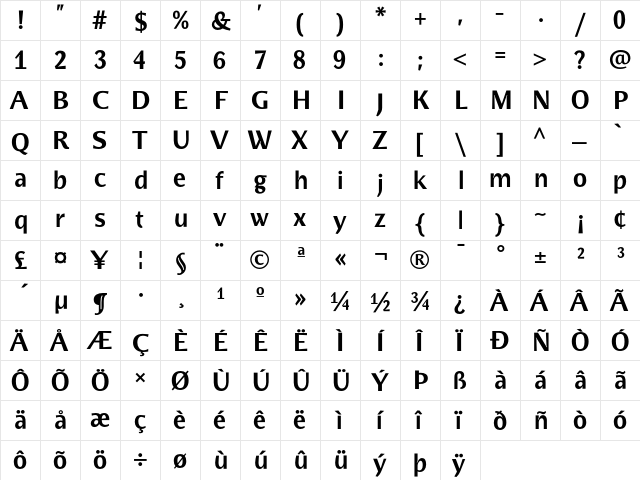
BradloSans Bold
Design Context for BradloSans Typeface
BradloSans takes a measured approach to typography — its balanced proportions and neutral character make it a reliable workhorse for both digital and print work. The heavy weight commands attention and anchors typographic hierarchies.